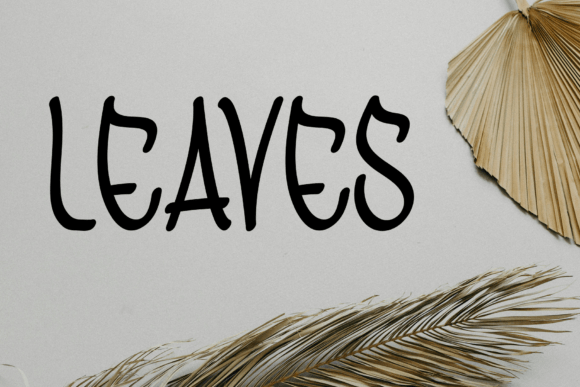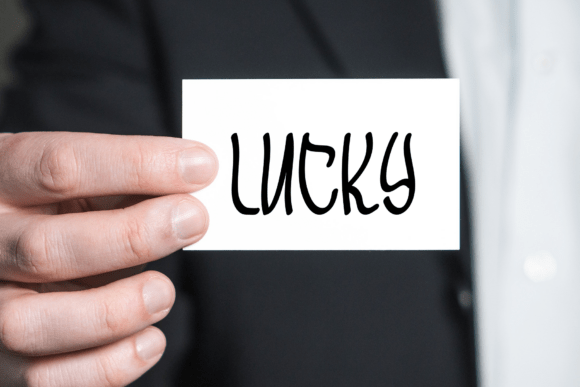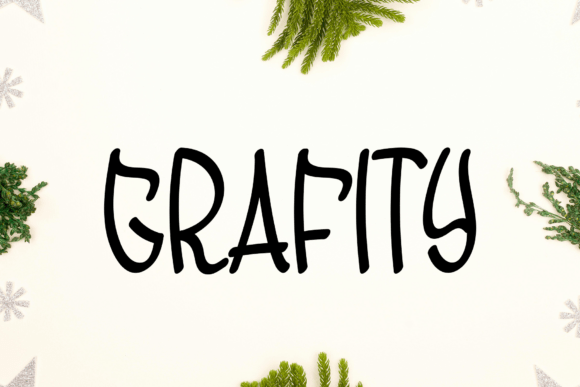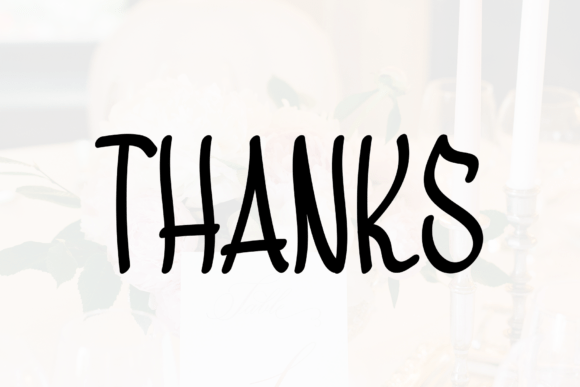
Introduction to Familytimes Font
Have you ever been browsing through a vintage comic book store, surrounded by the nostalgic smell of old paper and the sound of flip-through pages? As you scan the colorful illustrations and bold typography, a particular lettering style catches your eye – chunky, playful, and full of personality. That’s the magic of the Familytimes Font, a quirky display font that’s about to become your new design BFF.
As a designer, you’re always on the lookout for that special something to elevate your creative project. Whether it’s a fun product packaging design, a children’s event branding, or a social media graphic, the Familytimes Font is the perfect addition to bring joy and warmth to your work. And the best part? This high-quality font is available for free download with a transparent background, making it easy to incorporate into your designs.
Key Features of Familytimes Font
- High-quality, professional font suitable for various creative projects, including design and publishing.
- Features a unique, elegant design that adds a touch of sophistication to any project.
- Has a large character set, making it suitable for a wide range of languages and applications.
Honest Review: Familytimes Font
I recently had the chance to work with the Familytimes Font, and I must say, it’s a great addition to any design resource. I downloaded it for free, and I was immediately impressed by its versatility.
- Great for both digital and print designs
- Not as wide of a character set as some other fonts I’ve used
- Might not be suitable for projects that require a lot of fine-tuned typography
Overall, I’m impressed with the Familytimes Font. It’s a solid choice for designers who need a high-quality font that’s easy to work with. While it may have some limitations, it’s a great value for free download.
I’ve already used it on several projects, and I’m excited to see how it will continue to perform.
The Familytimes Font is a versatile design resource that can be used for a variety of creative projects, including graphic design, digital art, and typography. Some common use cases include creating social media graphics, designing business cards, and crafting custom logos.